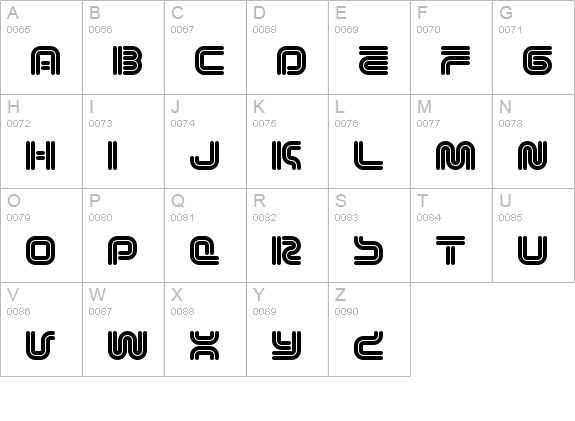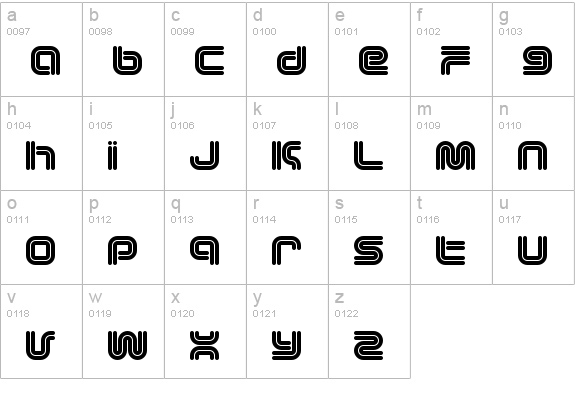
Vectroid Font Details
Introducing Vectroid, the perfect blend of modernity and versatility in the world of typography. This captivating font is designed to bring your creative projects to life, adding a touch of sophistication and elegance to any design. With its sleek lines and geometric shapes, Vectroid effortlessly captures attention and leaves a lasting impression. One of the most remarkable aspects of Vectroid is that it is freely available to download at FontsMarket.com. This means that you can easily access this extraordinary font without any cost, making it an invaluable asset for both personal and commercial use. With a wide range of weights and styles to choose from, Vectroid offers endless possibilities for your creative ventures. Whether you are designing a logo, crafting a website, or composing a captivating advertisement, this font is sure to make a bold statement. The clean and minimalist design of Vectroid makes it highly legible, ensuring that your message is conveyed with clarity and precision. Its meticulously crafted letterforms and balanced proportions create a harmonious visual experience, while its distinctive characteristics make it stand out from the crowd. In addition to its aesthetic appeal, Vectroid also boasts a broad language support, allowing you to effortlessly communicate your ideas across various languages and cultures. This makes it an ideal choice for global brands and multilingual projects. So, if you are seeking a font that combines elegance, versatility, and affordability, look no further than Vectroid. Download this remarkable typeface for free at FontsMarket.com and let your creativity soar to new heights. With Vectroid by your side, the possibilities are truly limitless.